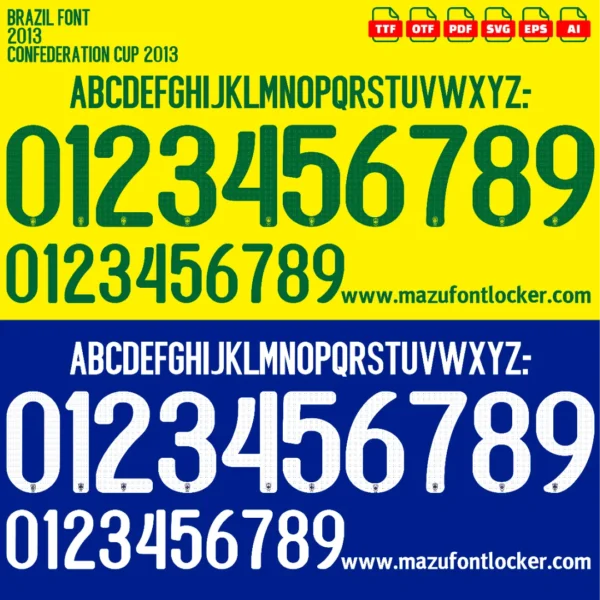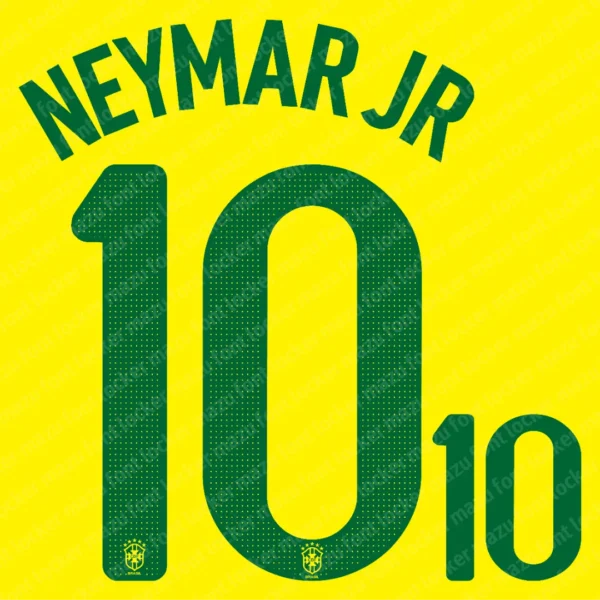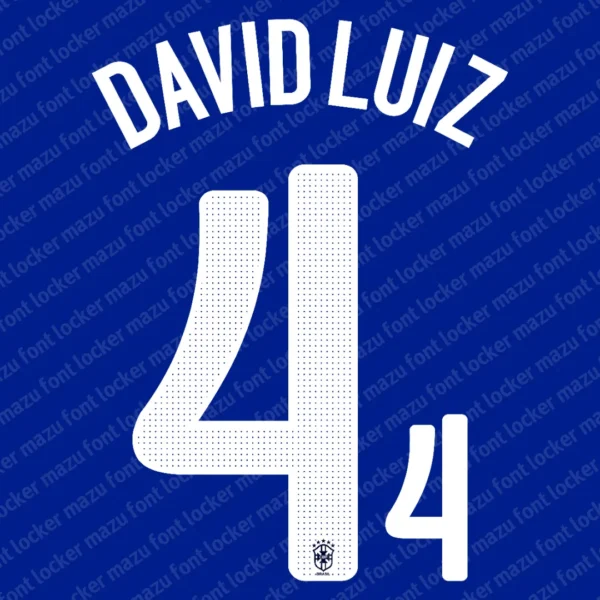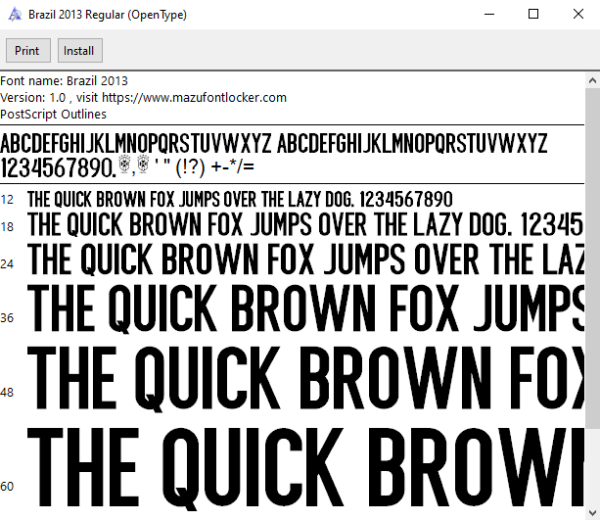
Brazil Confederations Cup 2013 Font Vector – Stunning Seleção Champions Typeface
This premium font captures the bold, iconic, championship-winning, and world-renowned lettering that embodies the unstoppable Seleção identity — delivering electrifying Brazilian flair, fearless attacking football, unmatched technical mastery, samba-inspired creativity, unwavering national pride, and the legendary winning mentality that powered Brazil to lift the 2013 FIFA Confederations Cup trophy in spectacular fashion, cementing their status as one of the greatest football nations in history.
Brazil Confederations Cup 2013 Font Vector – Authentic Champions Typeface
The Brazil Confederations Cup 2013 Font Vector is a premium typeface that faithfully recreates the official match lettering worn by the Brazil national team during the victorious 2013 FIFA Confederations Cup. This high-quality vector font kit captures the bold, modern, and professional typography that became part of Brazil’s unforgettable triumph on home soil, showcasing the flair, confidence, and attacking football that thrilled fans worldwide.
Designed for football designers, jersey collectors, and passionate Seleção supporters, the Brazil Confederations Cup 2013 Font Vector delivers exceptional authenticity for creating realistic jersey mockups, custom fan apparel, football graphics, social media content, and international football-inspired projects. The font perfectly complements Brazil’s iconic yellow and green kit, recognized across every corner of the football world.
Why Choose Brazil Confederations Cup 2013 Font Vector
This font kit offers outstanding vector precision and authentic tournament styling. Every letter and number has been carefully recreated to match the official shirt printing used throughout Brazil’s victorious 2013 Confederations Cup campaign. Whether you’re designing professional kit concepts or celebrating one of Brazil’s greatest international performances, this font delivers the unmistakable atmosphere of world-class football.
The Brazil Confederations Cup 2013 Font Vector features bold geometric letterforms with clean edges, smooth curves, and balanced proportions. Inspired by the official match typography, every character blends modern athletic styling with the legendary identity of the Seleção, ensuring outstanding readability across both digital and print projects.
The numbers feature sleek curves, sharp detailing, and consistent spacing for an authentic professional match appearance. Built entirely as scalable vectors, every numeral remains crisp and precise for jersey printing, digital artwork, and high-resolution production.
- Complete uppercase A–Z alphabet and numbers 0–9
- Special Brazil logo glyph – Press the “:” (Colon mark) symbol to insert the logo
- Multilingual Latin character support with special characters
- Create realistic Brazil Confederations Cup 2013 jersey mockups with authentic lettering.
- Design stunning football posters, tournament graphics, and player presentations.
- Produce custom Brazil-inspired merchandise and fan artwork.
- Create engaging content for Instagram, Facebook, TikTok, YouTube, and more.
- Perfect for recreating the iconic 2013 championship-winning Brazil kit.
Brazil Confederations Cup 2013 Campaign
Brazil entered the 2013 FIFA Confederations Cup as hosts and produced a spectacular tournament, defeating Japan, Mexico, and Italy in the group stage before overcoming Uruguay in the semi-finals. In the final at the Maracanã Stadium, Brazil defeated Spain 3–0 to lift the trophy, with standout performances from Neymar, Fred, Oscar, David Luiz, Thiago Silva, Dani Alves, Hulk, and Júlio César.
The Brazil Confederations Cup 2013 Font Vector is an independently designed typeface package inspired by the official jersey lettering used by the Brazil national team during the 2013 FIFA Confederations Cup. It is ideal for football-inspired artwork, fan projects, jersey customization, digital graphics, and creative sports designs. This is a fan-made design resource and is not affiliated with or endorsed by FIFA or the Brazilian Football Confederation.